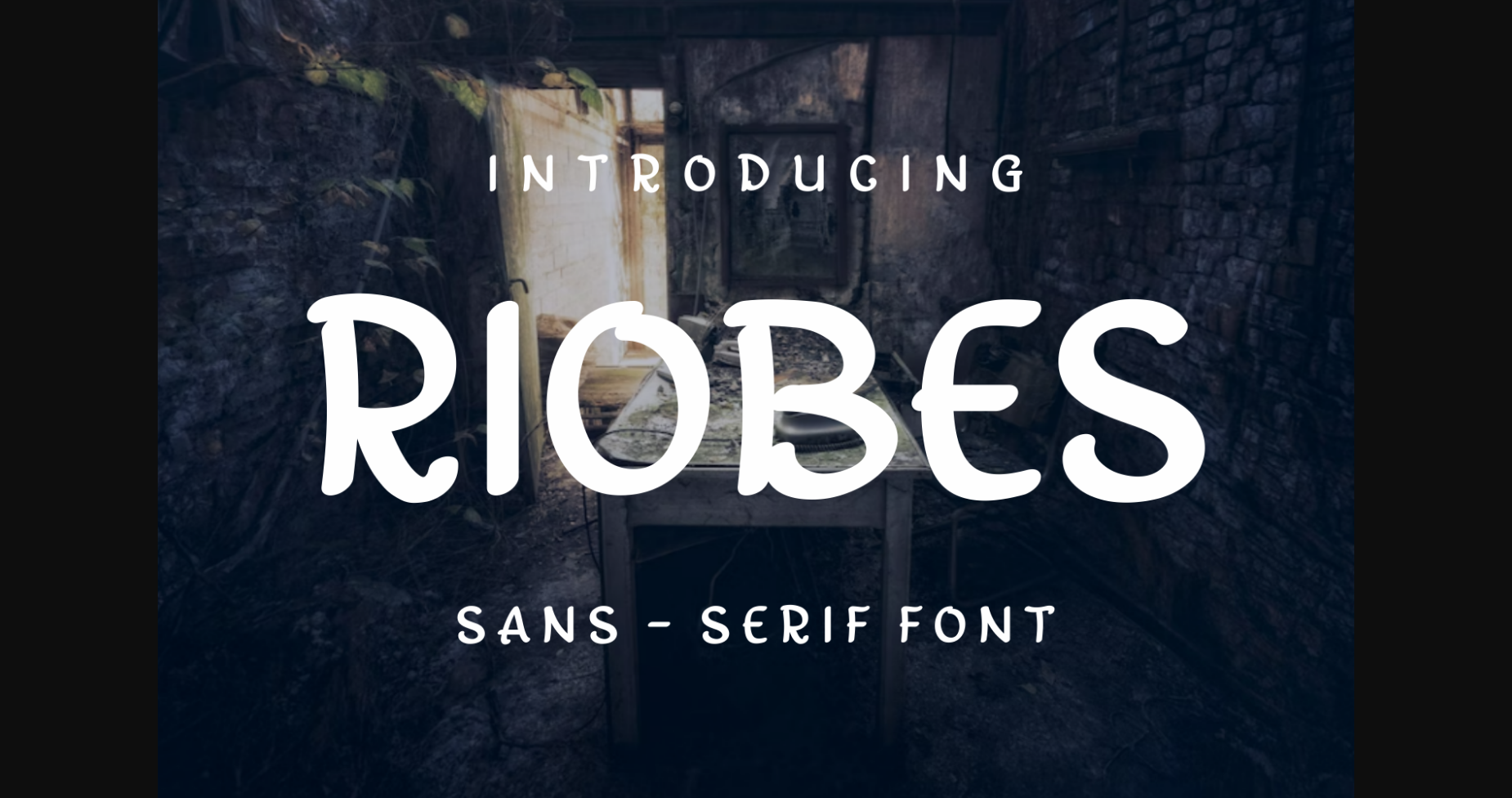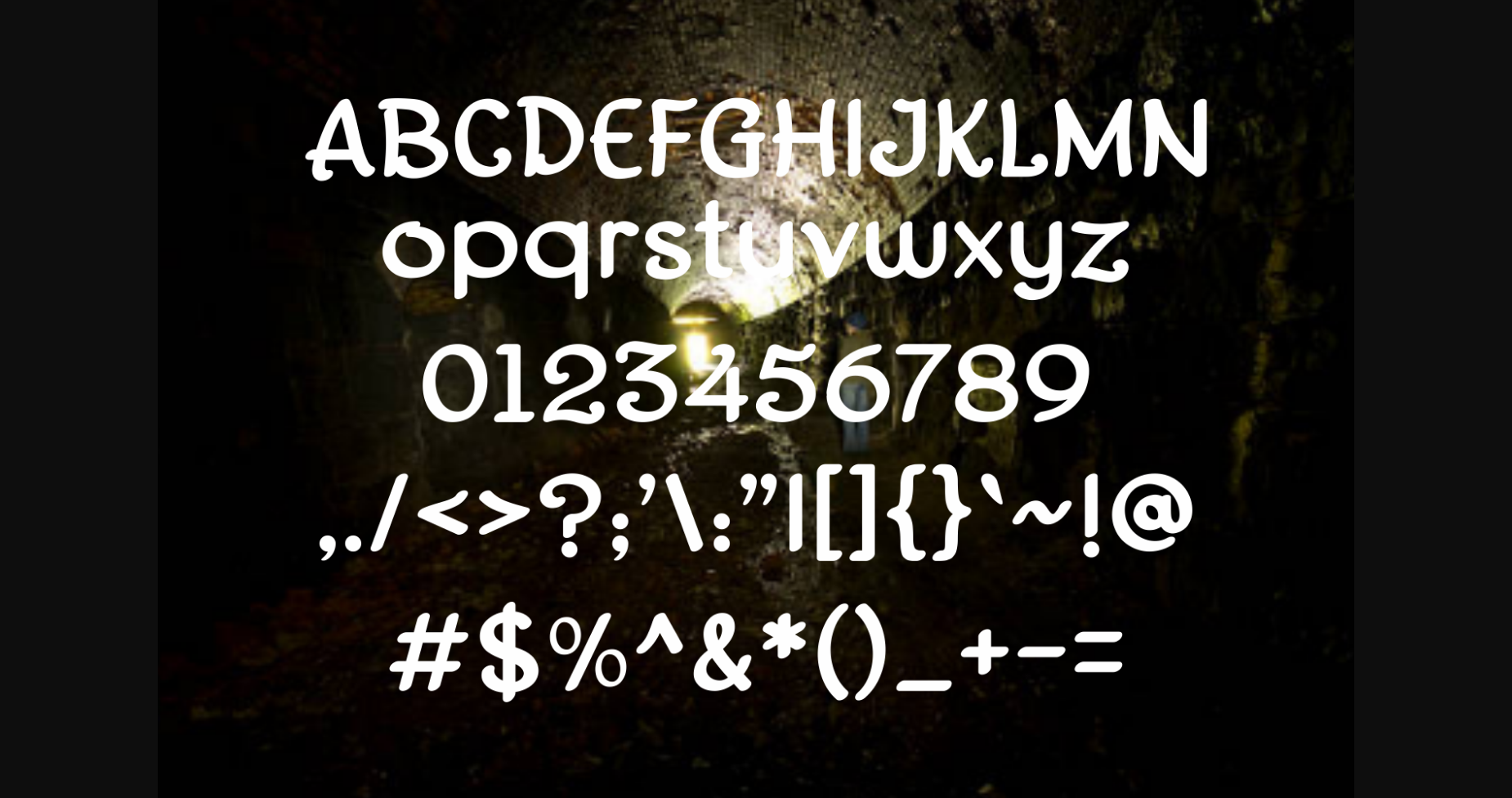
About Riobes Font
Riobes is a casual and neat sans serif font. No matter the topic, this font will be an incredible asset to your fonts’ library, as it has the potential to elevate any creation.